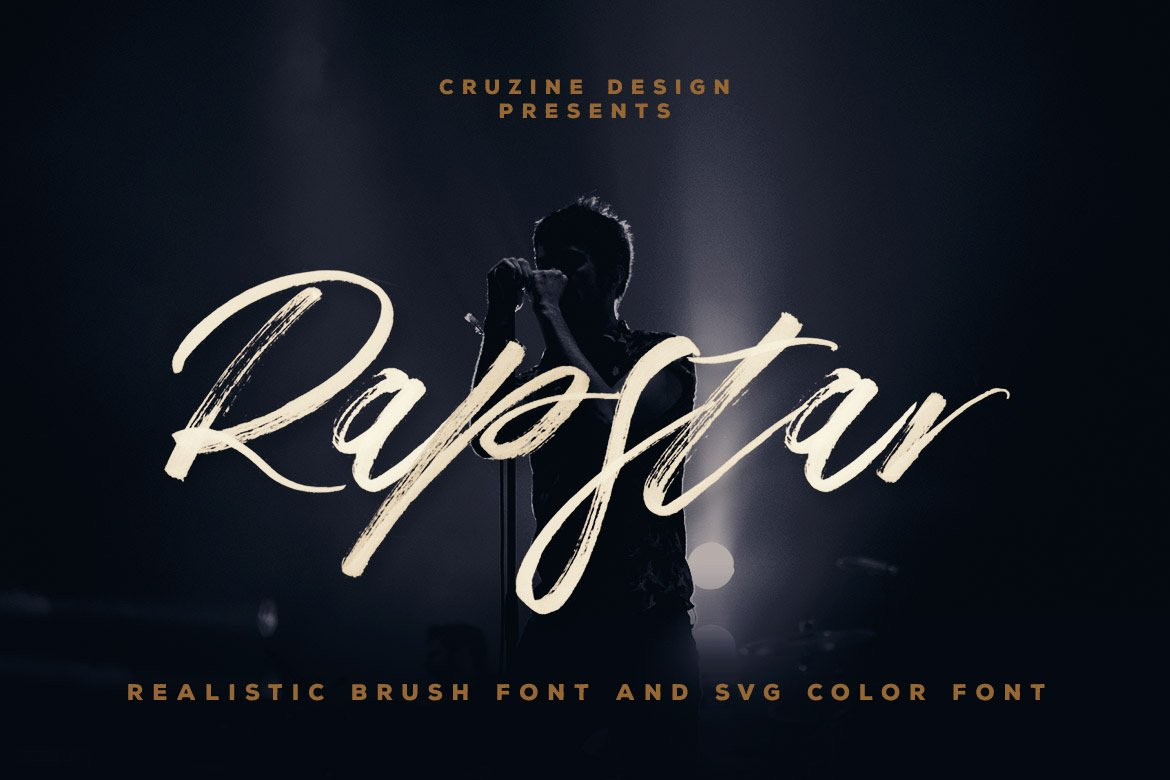
Rapstar Brush & SVG Font
Rapstar Brush & SVG Font is perfect for hip-hop record labels, urban music venues, rap battle promotions, street culture brands, music streaming platforms, underground artist branding, hip-hop festival marketing, urban fashion labels, freestyle competition materials, and authentic rap culture organizations.
Rapstar Brush & SVG Font creates excitement because it embodies the raw talent and lyrical power of hip-hop culture with its dynamic brush letterforms and rap-inspired character design. The font's flowing strokes and street aesthetic instantly convey authentic rap credibility and urban sophistication, making any brand appear genuinely connected to hip-hop culture and authentically street-smart. Its carefully crafted rap details and freestyle character create an immediate sense of lyrical authenticity that captivates audiences seeking genuine hip-hop experiences, rap quality, and products that celebrate the transformative power of rap music and urban artistic expression.
The Rapstar Brush & SVG Font family includes multiple weights and styles: Regular, Bold, Light, Medium, Italic, Condensed, Extended, Freestyle, Urban, and Lyrical versions. Each variant maintains the font's signature rap character while offering different levels of street styling and hip-hop authenticity suitable for various music industry and urban culture applications.
This powerful typeface brings the authentic spirit of rap culture into contemporary urban design with remarkable energy and hip-hop appeal. Rapstar Brush & SVG Font Free Download provides music brands and hip-hop organizations with access to premium rap-inspired typography that embodies the essence of lyrical excellence and urban artistic expression. The font's dynamic design and rap authenticity make it ideal for businesses seeking to establish meaningful connections with hip-hop audiences who appreciate rap culture, urban artistry, and the transformative power of lyrical expression that creates authentic street credibility. Whether you're creating branding for record labels, designing materials for music venues, developing communications for urban artists, or producing content for hip-hop platforms, this font delivers the authentic rap atmosphere that resonates with audiences seeking genuine hip-hop experiences, urban quality, and the lyrical power that comes from embracing authentic rap culture. Its versatile design ensures outstanding performance across both bold printed materials and dynamic digital music platforms while maintaining the character of authentic rap typography. The font excels in applications requiring hip-hop credibility and urban appeal. Music industry professionals appreciate its ability to convey rap authenticity while remaining highly functional for various urban communications and hip-hop promotional materials. The comprehensive character set includes urban symbols and extensive international language support, making it perfect for global hip-hop brands and international rap organizations seeking to communicate authentic street culture, lyrical excellence, and urban artistic expression to diverse worldwide audiences who embrace hip-hop culture, appreciate rap artistry, and value the transformative power of genuine rap music that creates community through lyrical storytelling, urban poetry, and the unstoppable spirit of hip-hop that gives voice to authentic street experiences and urban artistic expression through the powerful medium of rap music and freestyle creativity.